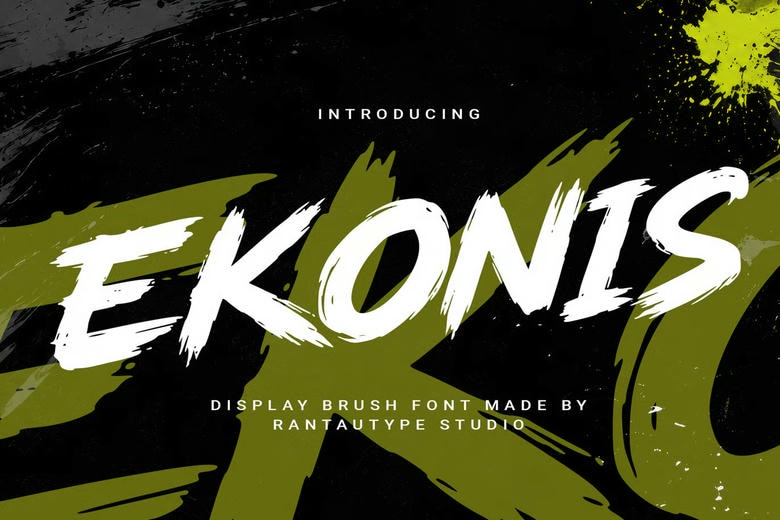
Ekonis Font
Ekonis is a bold display brush font full of energy and expressive movement, giving your work a rebellious, handmade feel. Its dynamic strokes, rough edges, and dramatic letterforms create a hand-painted look that stands out.
Ekonis is a great choice for creative projects, from logotypes and titles to branding, invitations, social media posts, packaging, labels, photography, and more. It adds a modern touch to any design.
Ekonis Brush Font